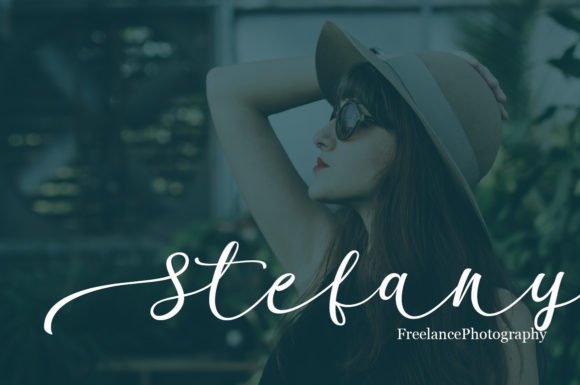
Garnita Script Font: The Perfect Companion for Your Creative Projects
Have you ever sat at your desk, staring at a blank page, searching for the perfect font to bring your design to life? You know, that moment when everything feels stagnant, and a little inspiration is just what you need? For designers like you, the right font can make all the difference.
Enter the lovely Garnita Script Font, a flowing and delicate script font that’s sure to capture your heart. PUA encoded for easy access, this font allows you to unlock its full potential and add a touch of elegance to your most cherished creations. Whether you’re working on a wedding invitation, a birthday card, or a personal project, Garnita Script Font is the perfect companion to help you bring your vision to life.
As a designer, you know the value of having a versatile and high-quality font at your fingertips. Garnita Script Font is a valuable addition to any design arsenal, offering a unique and distinctive look that’s sure to set your projects apart.
Garnita Script Font Key Features
- Font Family: Garnita Script Font, a beautiful and elegant script font.
- Unique Characteristics: The font features a fluid, cursive design with subtle flourishes and swashes, making it ideal for invitations, wedding designs, and other creative projects.
Garnita Script Font Review
I recently had the chance to work with the Garnita Script Font, and I must say it’s a unique and stylish addition to any design project. ✨ The font’s flowing script lines and elegant curves evoke a sense of sophistication and refinement.
- ✨ Elegant and refined feel that’s perfect for luxury brands or high-end designs
- ✨ Wide range of language support, making it suitable for international projects
- ✨ Multiple font styles and weights to choose from, allowing for flexibility in design
- ⚠️ Limited availability in all capital letters, which may be a concern for certain design projects
- ⚠️ Not ideal for projects requiring a more modern or edgy feel
- ⚠️ Some users may find the font difficult to read at smaller font sizes
Overall, I think Garnita Script Font is a solid choice for designers looking to add a touch of elegance to their projects. While it may not be suitable for every project, it’s definitely worth considering for those requiring a sophisticated and refined feel.
Tips for Getting the Most Out of Garnita Script
Use Garnita Script for creative and elegant designs.
Pair Garnita Script with bold fonts for a striking contrast.
Use Garnita Script for headings, titles, and quotes to add a touch of sophistication.
Alternatives to Garnita Script Font
What is the character set of Garnita Script Font?
Garnita Script Font includes a comprehensive character set, including uppercase and lowercase letters, numbers, punctuation marks, and a range of special characters. The font also includes a variety of ligatures and swashes to enhance the handwritten feel.